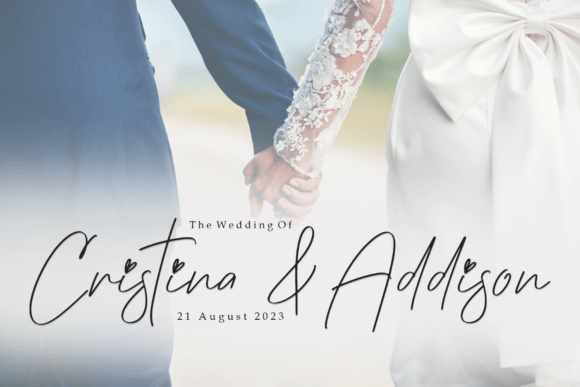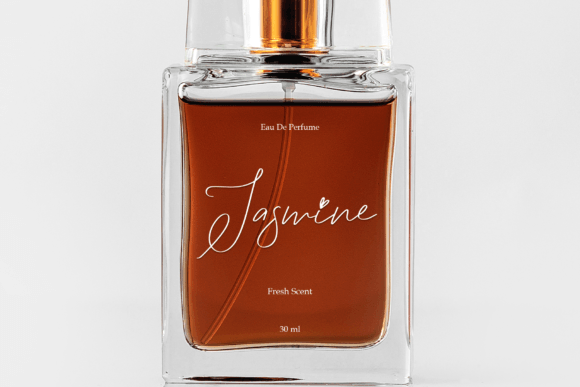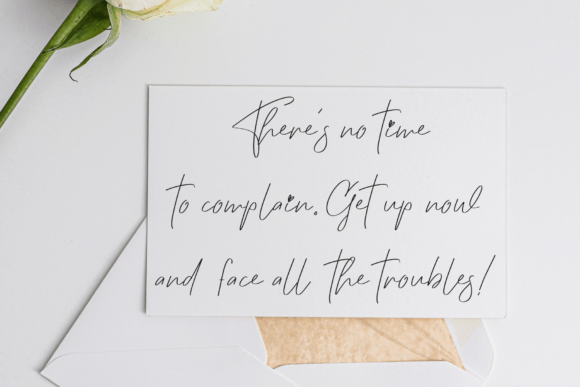
Introduction to Simple Stickers Font
Simple Stickers is a delightful handwritten font that adds a touch of love to your texts.
This charming font features hearts elegantly incorporated into the letters “i” and “j,” bringing a whimsical and romantic flair to your words With its smooth and flowing strokes, it captures the essence of heartfelt messages, invitations, and personal notes.
Key Features of Simple Stickers Font
Why Choose Simple Stickers Font?